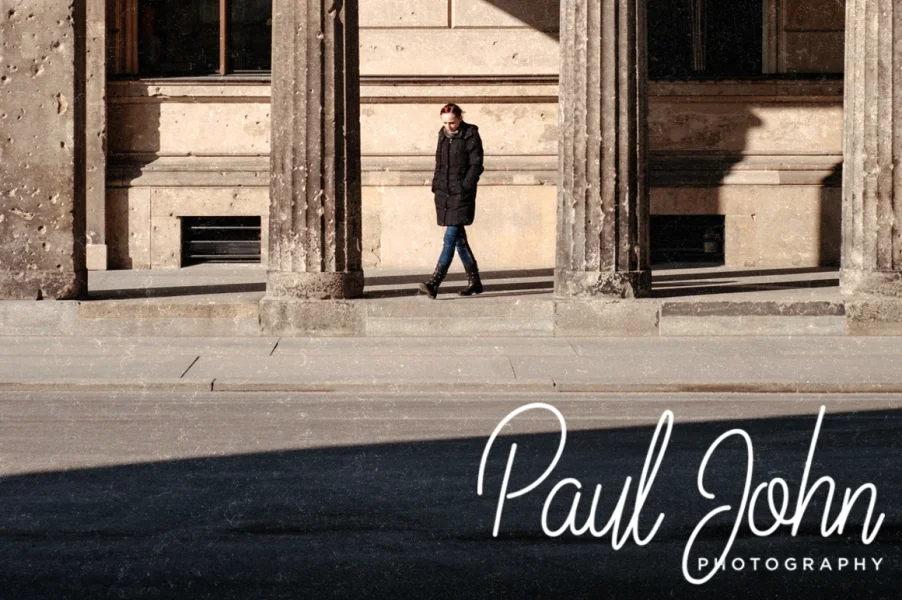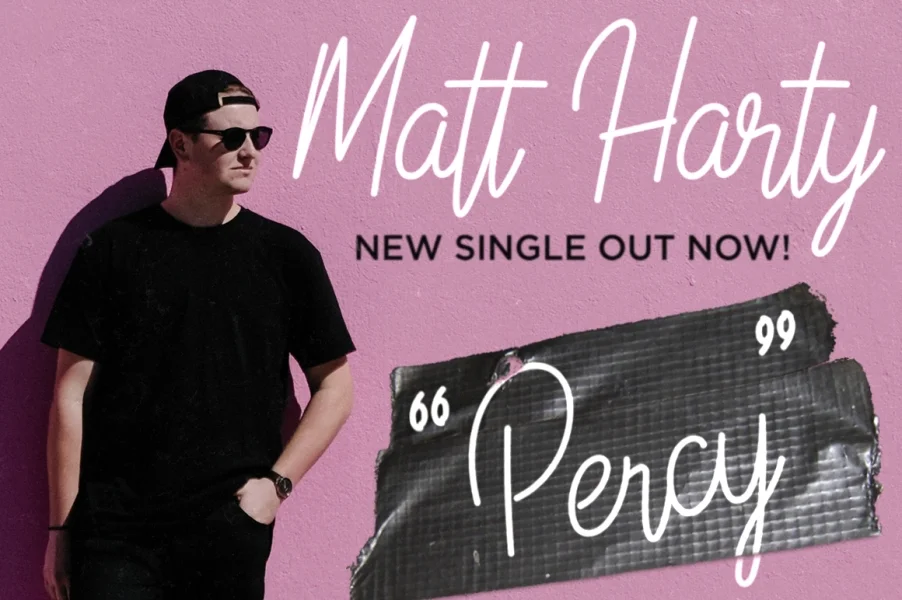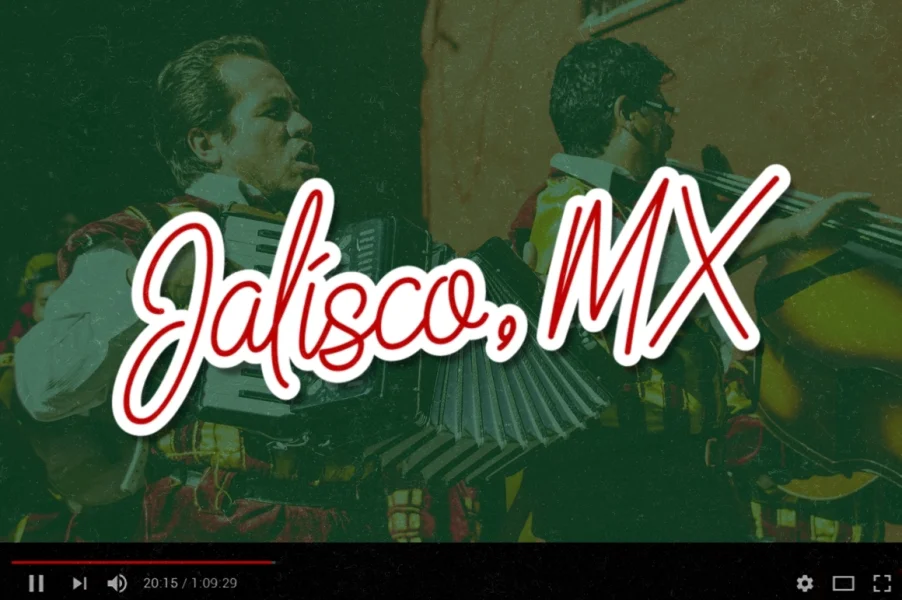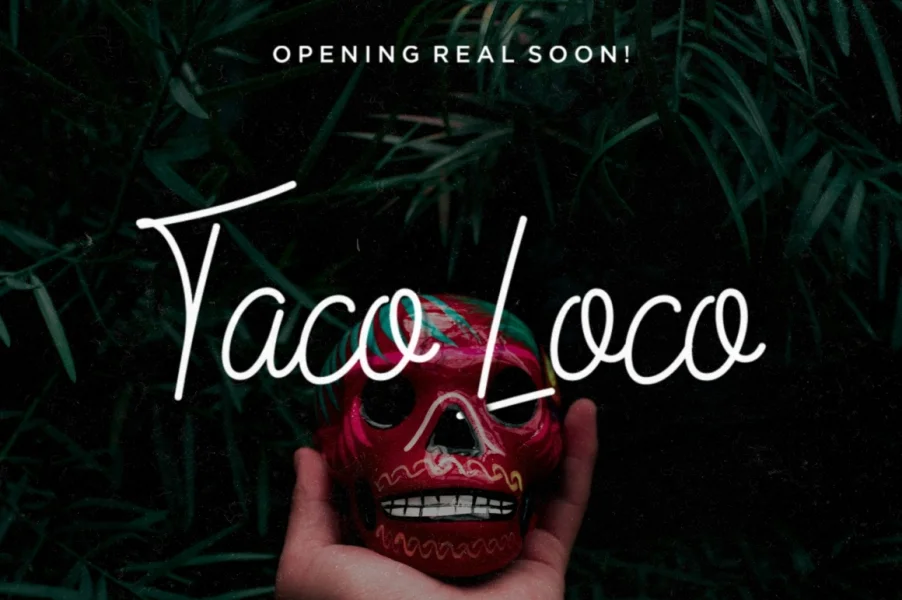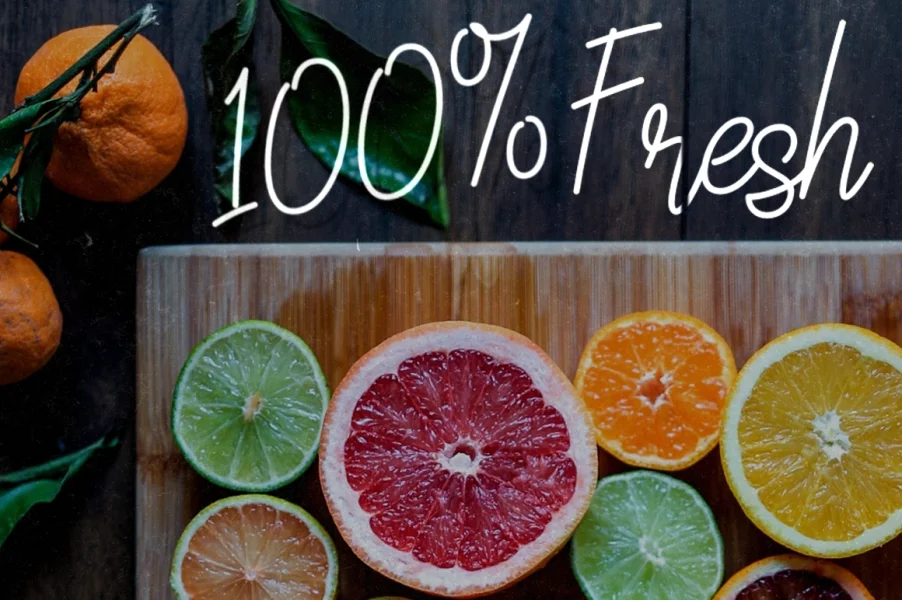
Introducing our latest free-font; Linoleo Script, a handwritten monoline script that inspired by modern calligraphy. The letterforms are carefully traced from our actual handwriting, its bouncing baseline and height inconsistency offers you an authentic yet unique handwriting feel. Suits best for almost any kind of your designing projects; wedding invitations, adventurous-hipster-quote posters, t-shirt designs, custom typography, faux neon sign, you name it.